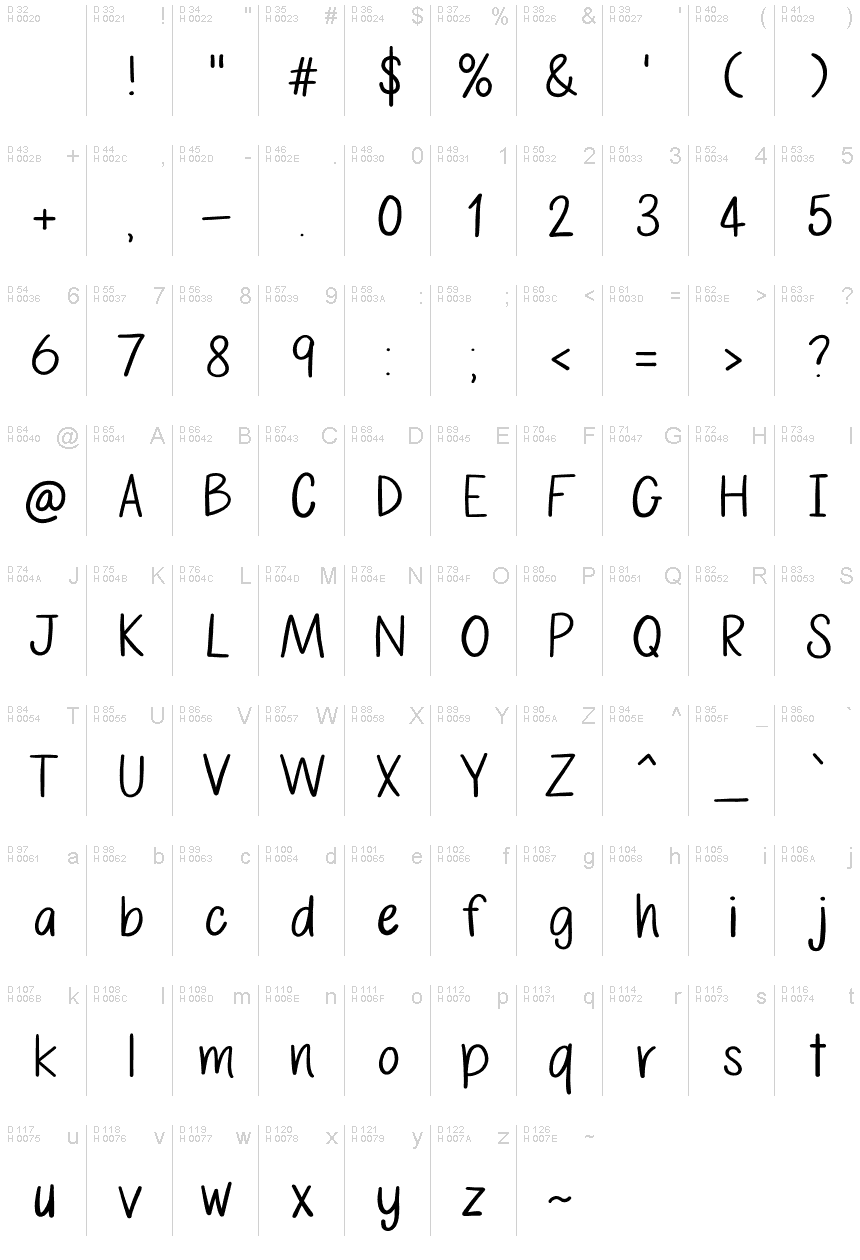
SteadyHand Regular
Steady Hand offers a touch of personal flair, masterfully crafted by Marina Sanders. This semi-light, handwritten font exudes an organic charm with its fluid, cohesive strokes that suggest the work of a confident and practiced hand. Its aesthetic strikes a balance between casual elegance and functional readability, making it as versatile as it is visually engaging.
The subtle irregularities in Steady Hand's letterforms add warmth and character to any project, embodying the authenticity of handcrafted design. Its approachable style is ideal for invitations, branding, and editorial work where a human touch is desired without compromising on clarity.
With Steady Hand, designers can infuse their creations with a sense of intimacy that resonates with audiences across various mediums. Whether it's for digital graphics or print materials, this font stands out for its ability to marry personality with purpose in design.